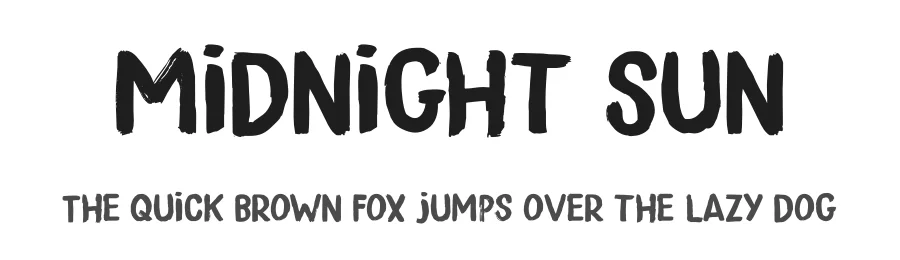
About Custom Font
Custom Font is a script font that shines as a display or heading face. Pair it with a clean sans-serif or serif font for body text β the contrast creates a clear hierarchy while the two styles stay balanced and easy to read.